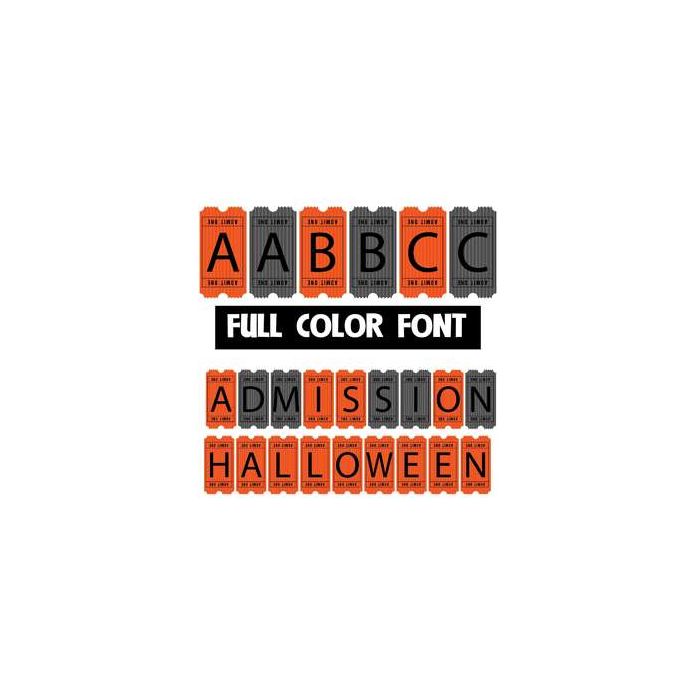
This full-color font features an uppercase in orange and lowercase in dark gray. Mix up both cases for best results. This font works best for titles, displays, posters and more. Please note color fonts will show as black in non compatible programs. This font type is compatible with Silhouette Studio.